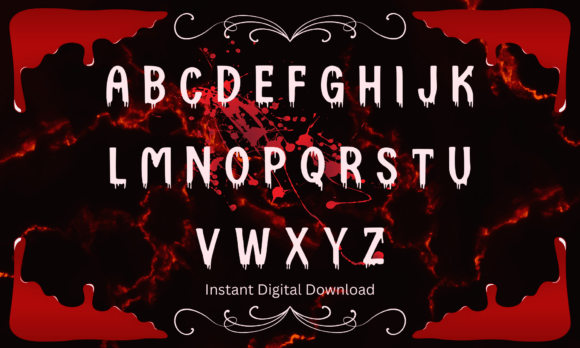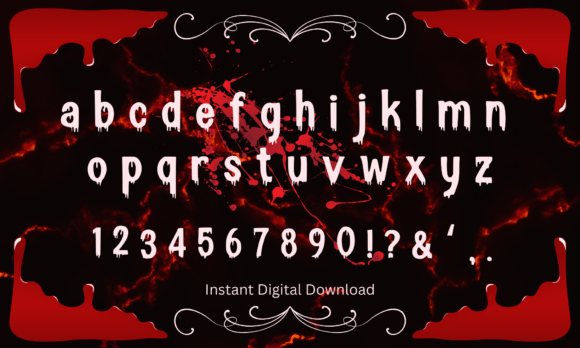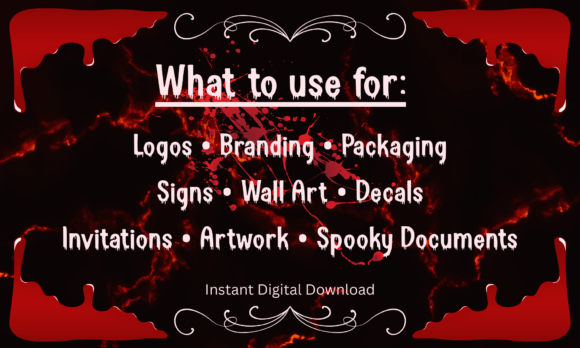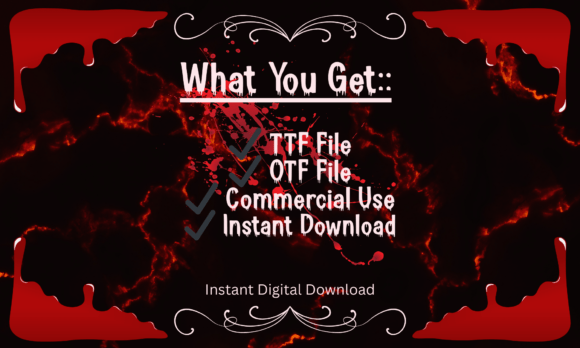
Bloody Mary Font: The Ultimate Horror Display Font for Spooky Designs
Are you looking for a font that will add a touch of horror and eeriness to your designs? Look no further than the Bloody Mary Font, a bold and dramatic display font inspired by dripping blood and classic spooky aesthetics. This font is perfect for designers and crafters who want to create a chilling and unforgettable impact with their horror-themed designs, Halloween projects, and eerie branding.
What is Bloody Mary Font?
Bloody Mary Font is a digital font designed to create an immediate and lasting impact. Its bold and dripping blood-inspired letters are perfect for making a statement with your designs. Whether you’re creating creepy invitations, dark artwork, or eye-catching decals, this font delivers a chilling and dramatic look that instantly grabs attention.
Perfect for Horror-Themed Designs
Bloody Mary Font is specifically designed for horror-themed designs, making it the perfect choice for:
- Logos & Branding: Create a spooky and memorable brand identity with this font.
- Packaging & Labels: Add a touch of horror to your product packaging and labels.
- Signs & Wall Art: Create eye-catching signs and wall art that will leave a lasting impression.
- Decals & Stickers: Design creepy decals and stickers that will add a touch of horror to any surface.
- Invitations & Posters: Create spooky invitations and posters that will set the tone for any horror-themed event.
- Artwork & Horror Designs: Add a touch of eeriness to your artwork and horror designs.
- Spooky Documents & Halloween Projects: Perfect for creating spooky documents, Halloween projects, and other creepy designs.
Tips for Using Bloody Mary Font
Here are some tips for using Bloody Mary Font in your designs:
- Use it sparingly: Bloody Mary Font is bold and dramatic, so use it sparingly to create a lasting impact.
- Experiment with colors: Try using different colors to create a unique and eerie effect.
- Combine with other fonts: Combine Bloody Mary Font with other fonts to create a unique and interesting contrast.
Bloody Mary Font is the ultimate horror display font for designers and crafters who want to create a chilling and unforgettable impact with their designs. With its bold and dripping blood-inspired letters, this font is perfect for horror-themed designs, Halloween projects, and eerie branding. Its compatibility with most design software makes it easy to use, and its digital format makes it accessible instantly.